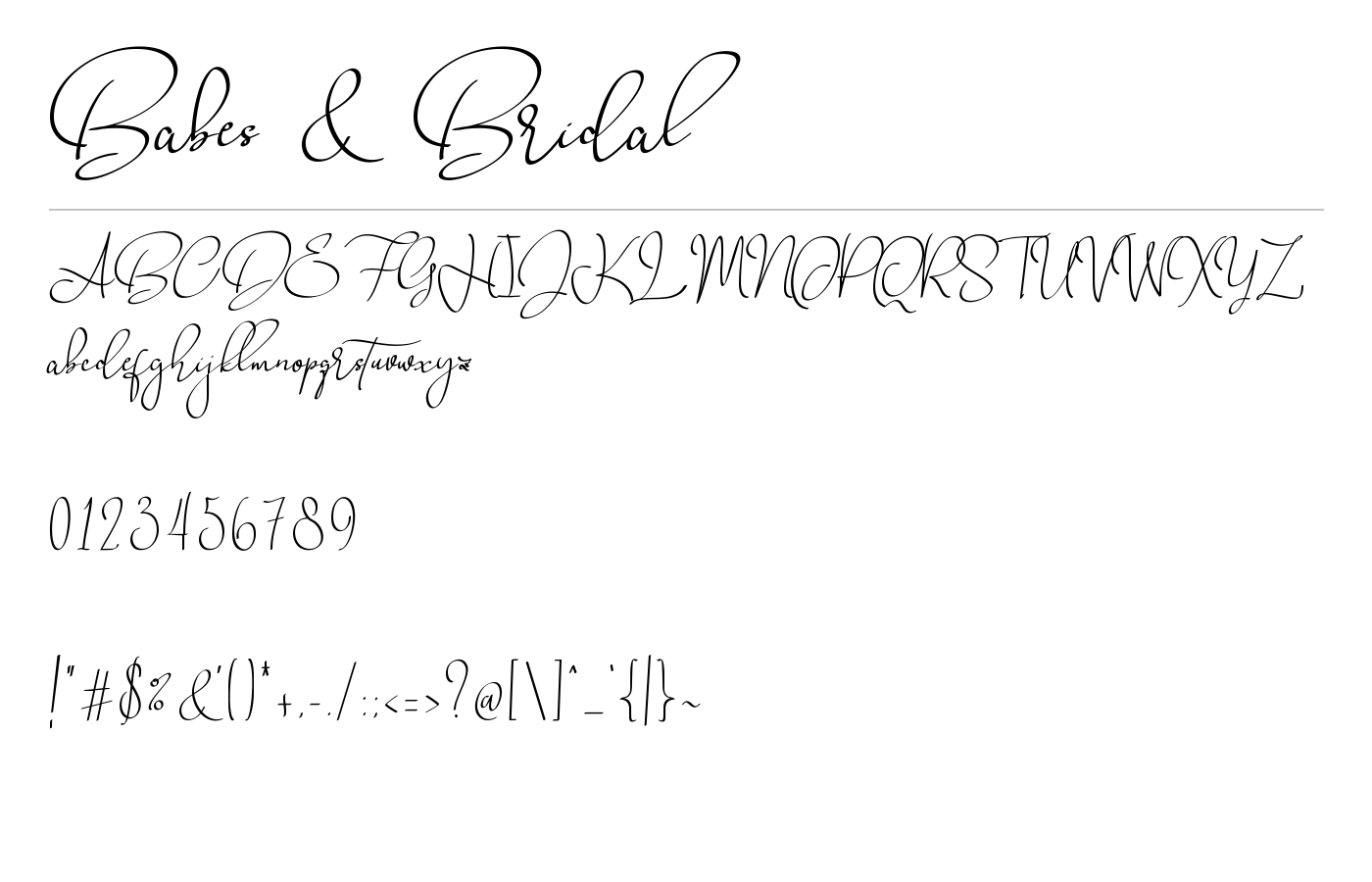
Babes & Bridal is an elegant, delicate script font characterized by its graceful, flowing lines and fine, slender strokes. It features a sophisticated handwritten style with high contrast and a romantic feel, making it perfect for weddings, invitations, and luxury branding that seek a refined yet personal touch. This font works beautifully for headlines and logos where a stylish, feminine, and intimate atmosphere is desired.
Babes & Bridal Font
About Babes & Bridal Font